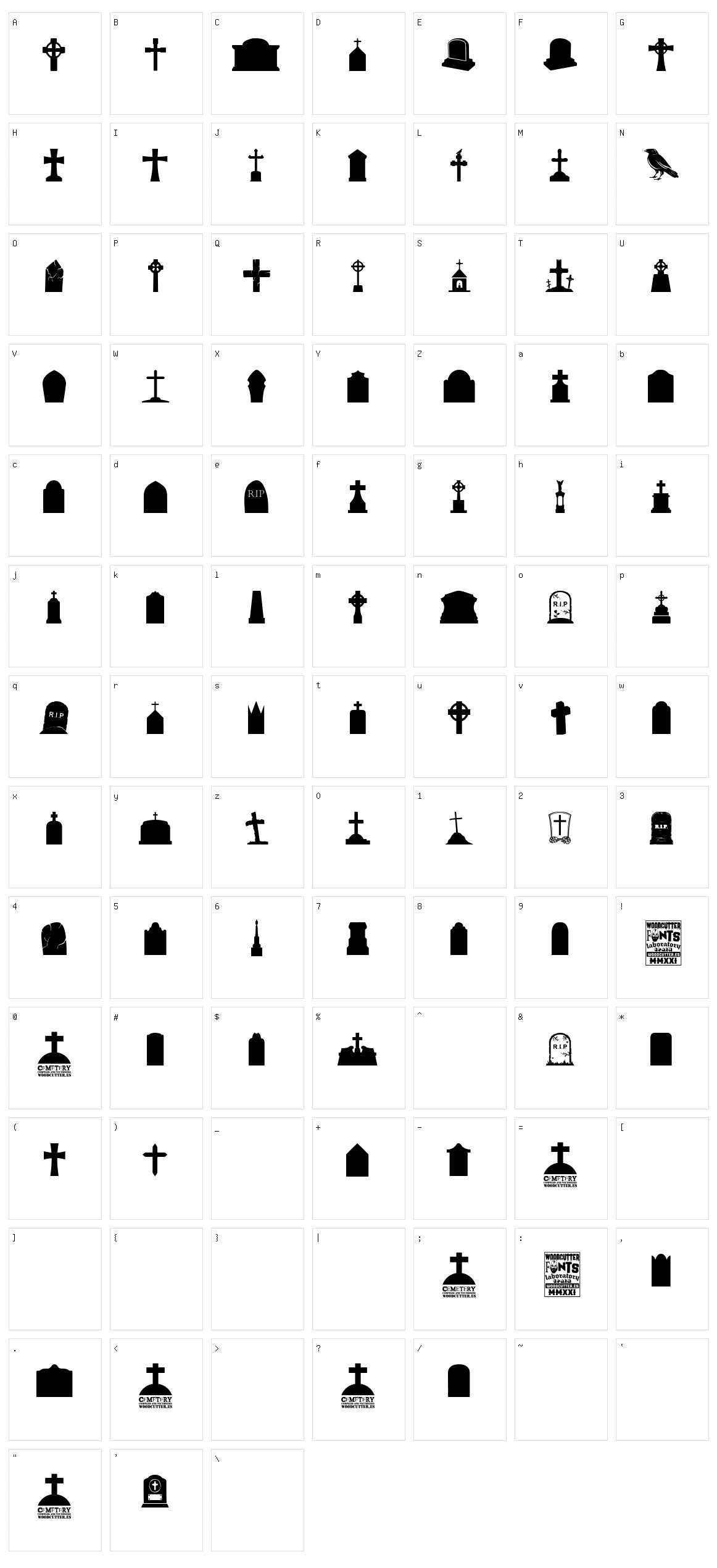
The free font Cemetery Icons is carefully designed by Woodcutter, showcasing a thoughtful balance of creativity and usability and falls under the Halloween font style. When you download the ZIP file, it contains only 59.53 KB of font files, making it lightweight and quick to download. Please review the license details below to understand permitted usage and distribution rights. If license information is not available, we recommend using this font for personal projects only or contacting the author directly for commercial usage permissions.